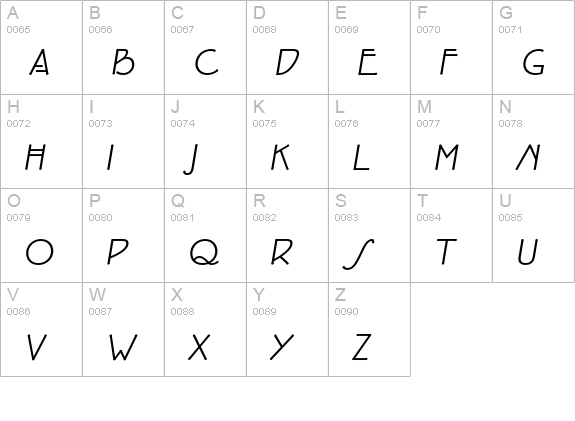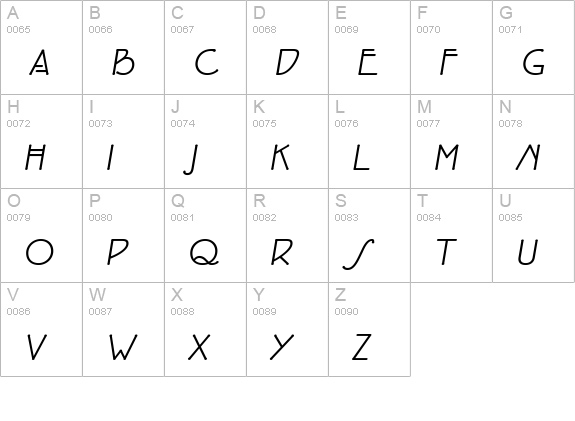
P22Eaglefeather-Italic Font Details
P22Eaglefeather-Italic is a distinctive, italic variant in the P22Eaglefeather typeface family \xE2\x80\x94 well suited to design and typography projects.
P22Eaglefeather-Italic is a stunning font that exudes elegance, sophistication, and a touch of whimsy. Its italicized design adds a subtle flair to any project, making it perfect for creating eye-catching headlines, invitations, logos, and more. This font's graceful curves and intricate details are reminiscent of a majestic eagle soaring through the sky, capturing the essence of freedom, strength, and grace. Each letter is meticulously crafted, with delicate strokes and exquisite proportions, resulting in a truly unique and captivating typeface. The versatility of P22Eaglefeather-Italic makes it suitable for a wide range of design projects. Whether you're creating a wedding invitation that needs a romantic touch, a branding project that requires a sophisticated feel, or a website that needs a dash of personality, this font is sure to impress. And the best part? P22Eaglefeather-Italic is freely available to download at FontsMarket.com. You can easily access and use this font to enhance your designs without any hassle or cost. Its availability for free allows designers, artists, and enthusiasts to explore its potential without any limitations. So, if you're looking to add a touch of elegance, grace, and freedom to your designs, look no further than P22Eaglefeather-Italic. Download it today from FontsMarket.com and let your creativity soar to new heights.